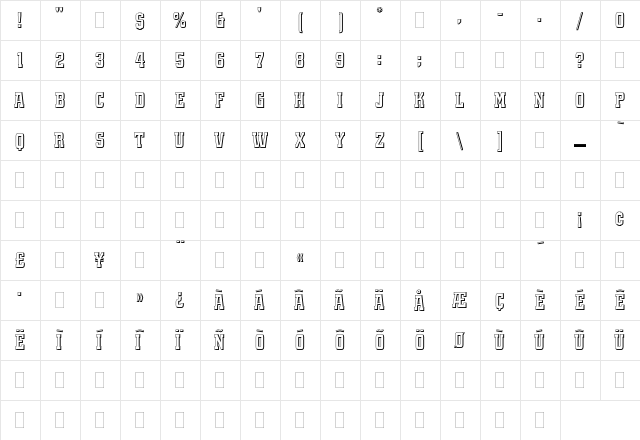
Quadrus Plain
Design Context for Quadrus Typeface
Quadrus takes a measured approach to typography — its balanced proportions and neutral character make it a reliable workhorse for both digital and print work.